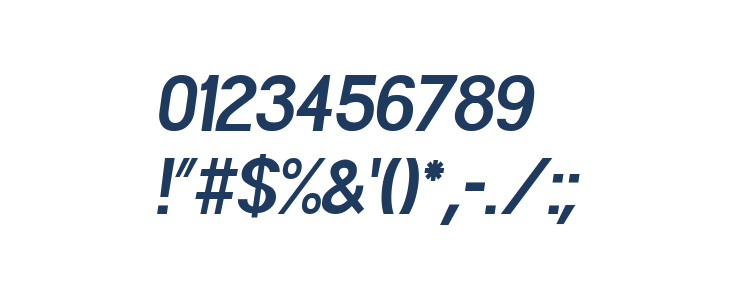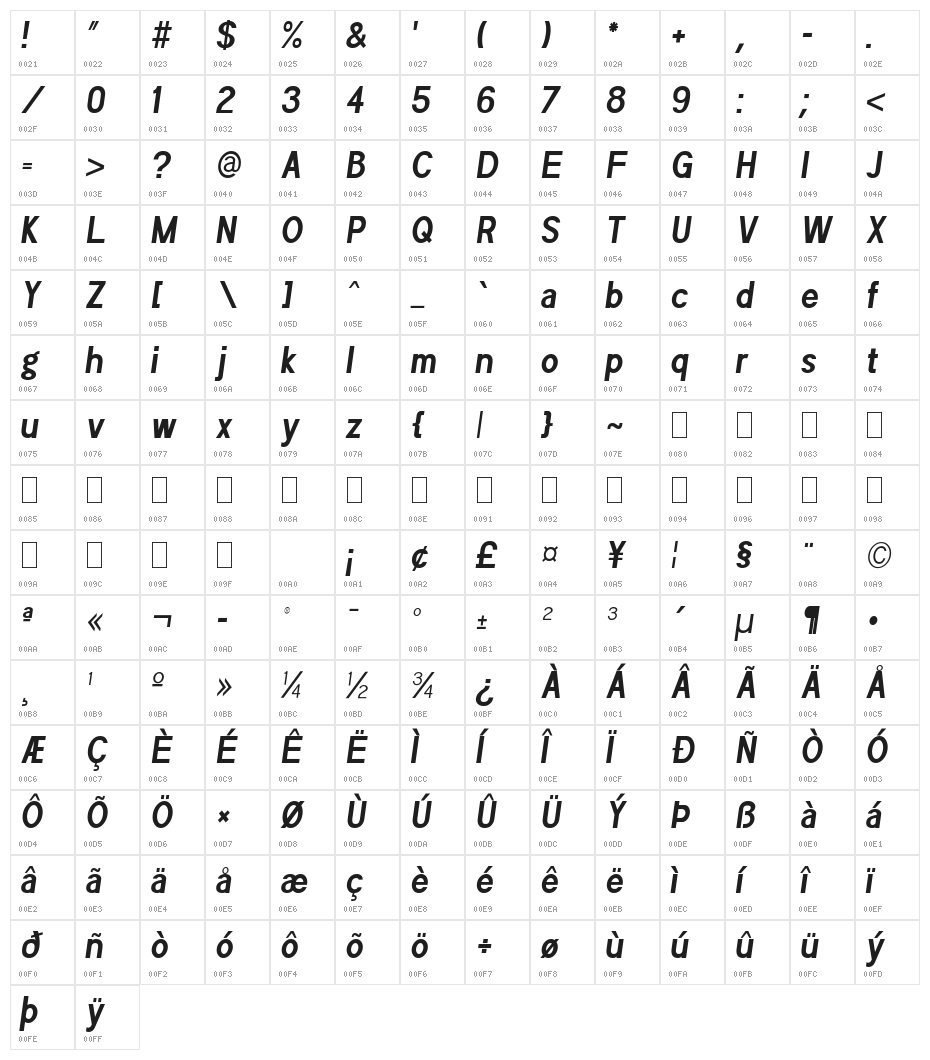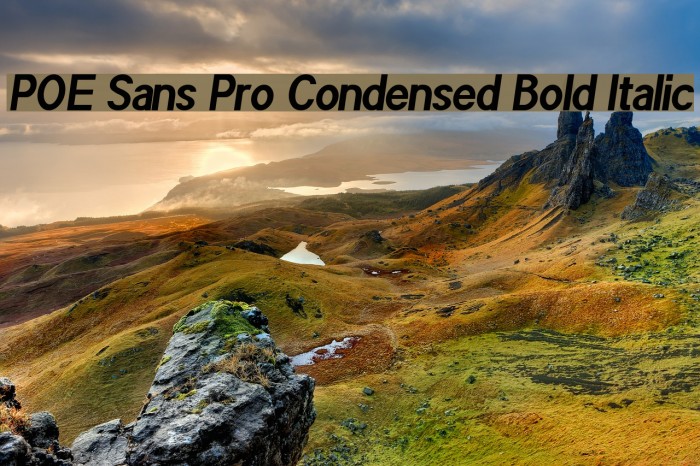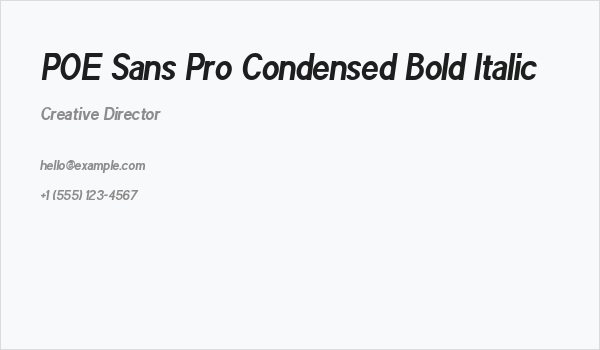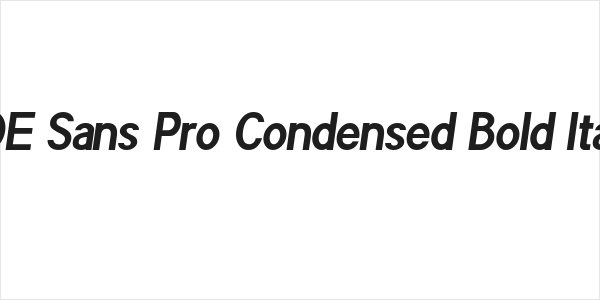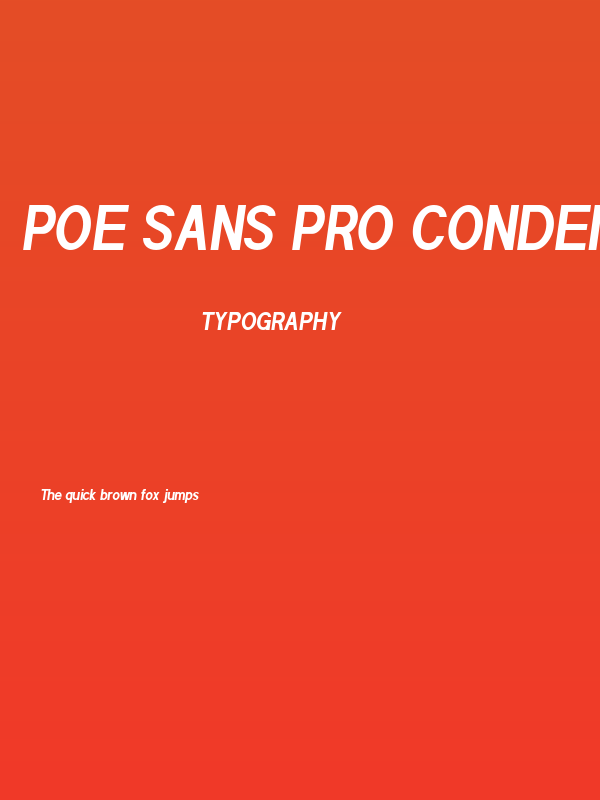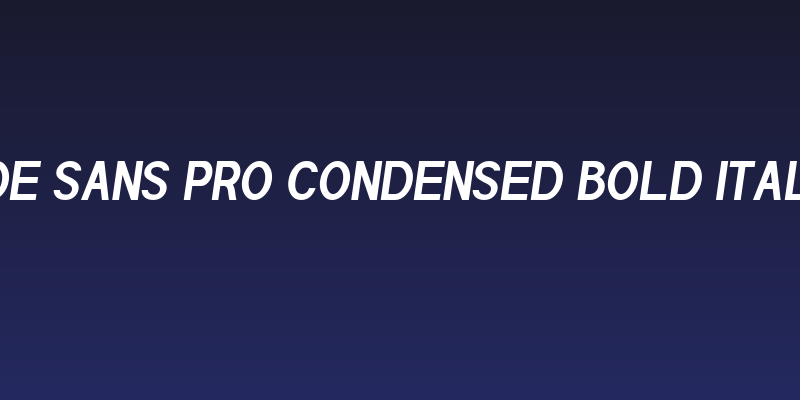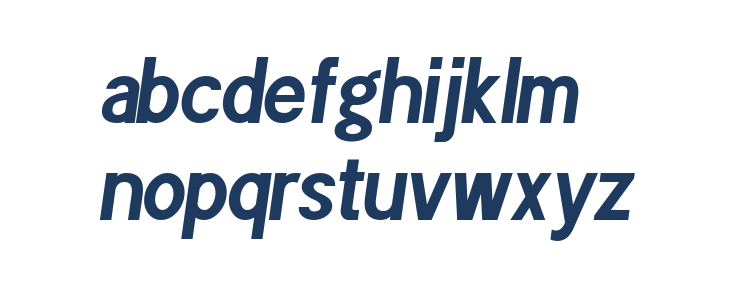
POE Sans Pro Condensed Bold Italic Font
POE Sans Pro Condensed Bold Italic Description
This font features a bold and italicized style with a condensed width, making it ideal for impactful and space-efficient designs. The characters are clean and modern, with smooth curves and sharp edges that enhance readability. The uppercase and lowercase letters maintain a consistent height, while the numerals are clear and distinct. Special characters are well-defined, ensuring versatility across various design needs. The overall appearance is sleek and professional, suitable for both digital and print media.
| Use Case | Headlines, Logos, Advertising |
| Proposed Projects | Ideal for headlines, branding, advertising, and any project requiring a strong visual impact. |